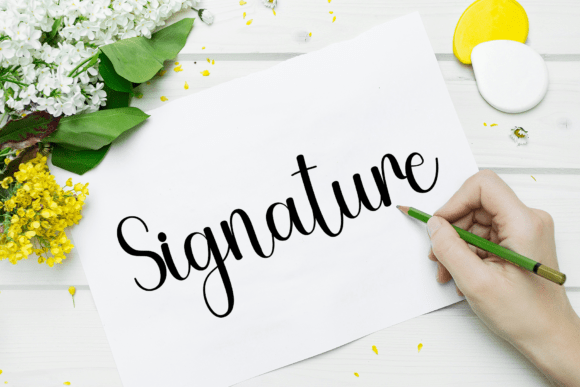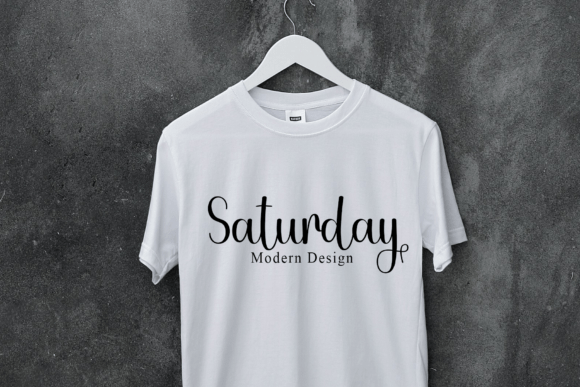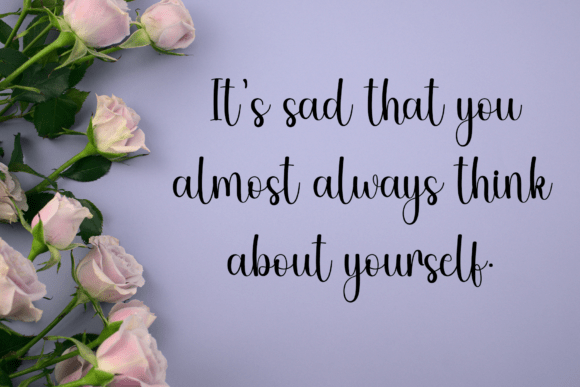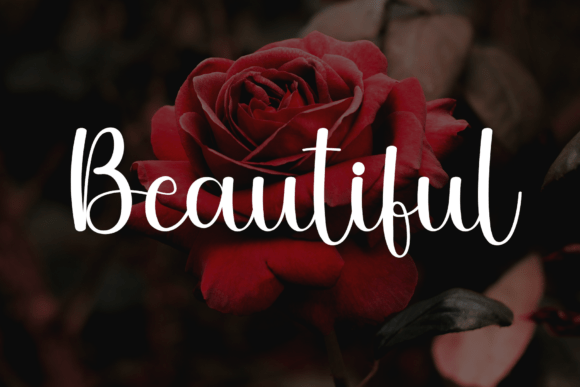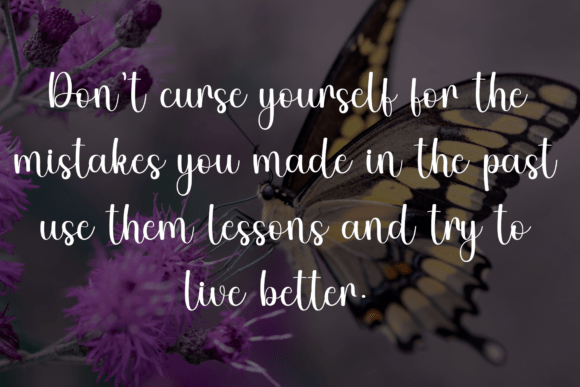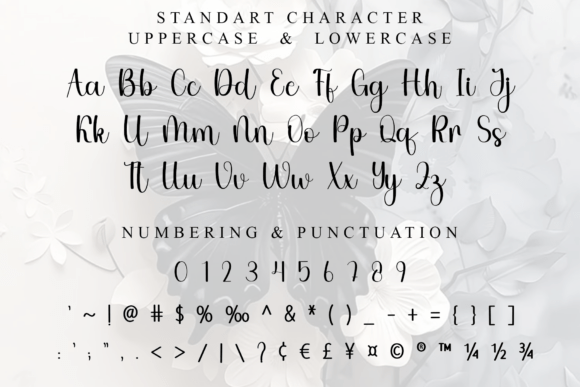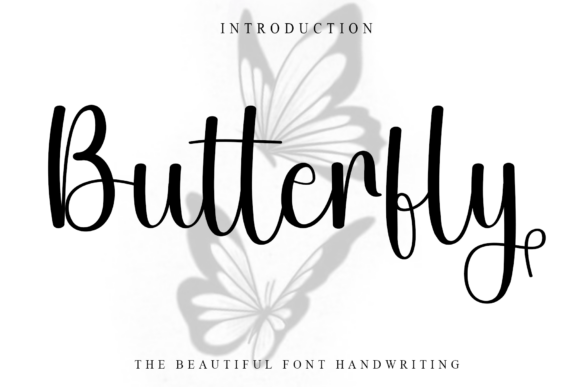
Introducing Butterfly Font: Add a Touch of Holiday Magic to Your Designs
As the holiday season approaches, designers and crafters are on the lookout for typography that captures the spirit of festivity and joy. Look no further than Butterfly Font, a merry and decorative typeface that’s perfect for adding a touch of enchantment to your designs. In this article, we’ll explore the features and benefits of Butterfly Font, and how it can elevate your holiday-themed projects.
A Festive and Whimsical Typeface
Butterfly Font is a beautifully crafted typeface that embodies the whimsy and wonder of the holiday season. Its decorative elements and curly flourishes evoke a sense of nostalgia and cheer, making it perfect for greeting cards, gift tags, and other holiday-themed projects. Whether you’re designing for digital or print, Butterfly Font is sure to add a touch of magic to your words.
Key Features of Butterfly Font
- Decorative Elements: Butterfly Font features intricate decorative elements that add a touch of festivity to your designs.
- Whimsical Flair: The font’s curly flourishes and playful curves give it a whimsical feel that’s perfect for holiday-themed projects.
Butterfly Font is specifically designed for holiday-themed projects, making it perfect for:
- Greeting Cards: Add a touch of festivity to your holiday greeting cards with Butterfly Font.
- Gift Tags: Create beautiful and unique gift tags with Butterfly Font.
- Holiday-Themed Invitations: Use Butterfly Font to create festive and fun holiday-themed invitations.
- Social Media Graphics: Add a touch of holiday magic to your social media graphics with Butterfly Font.
Why Choose Butterfly Font?
With so many fonts available, why choose Butterfly Font? Here are just a few reasons:
- Unique and Festive: Butterfly Font is a unique and festive typeface that will set your designs apart.
- High-Quality Design: Butterfly Font is designed to high standards, ensuring that your designs look professional and polished.
Tips for Using Butterfly Font
Here are a few tips for getting the most out of Butterfly Font:
- Experiment with Sizes: Try using Butterfly Font in different sizes to create visual interest and hierarchy.
- Combine with Other Fonts: Combine Butterfly Font with other fonts to create a unique and interesting typography combination.
- Use Decorative Elements: Take advantage of the font’s decorative elements to add a touch of festivity to your designs.
Butterfly Font is a beautiful and festive typeface that’s perfect for adding a touch of holiday magic to your designs. With its decorative elements, whimsical flair, and PUA encoding, it’s easy to use and perfect for a range of holiday-themed projects. Whether you’re a designer or crafter, Butterfly Font is sure to become a favorite in your typography collection.